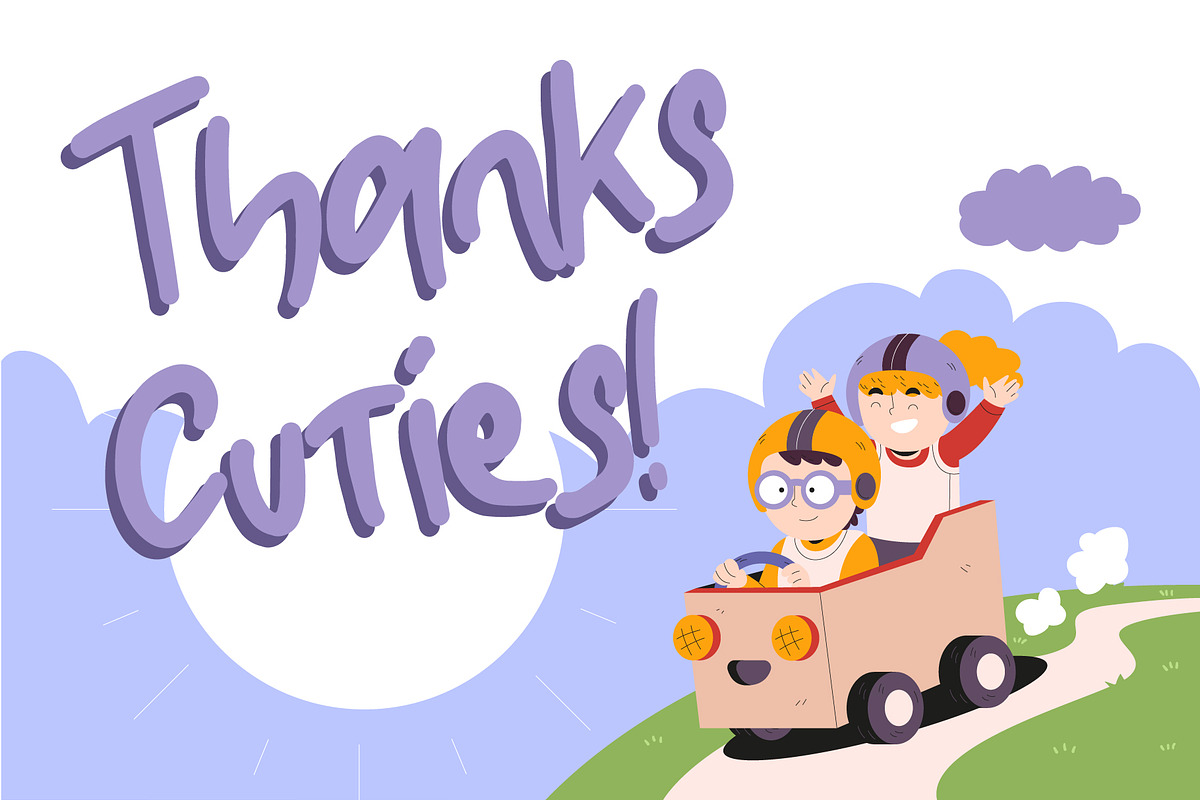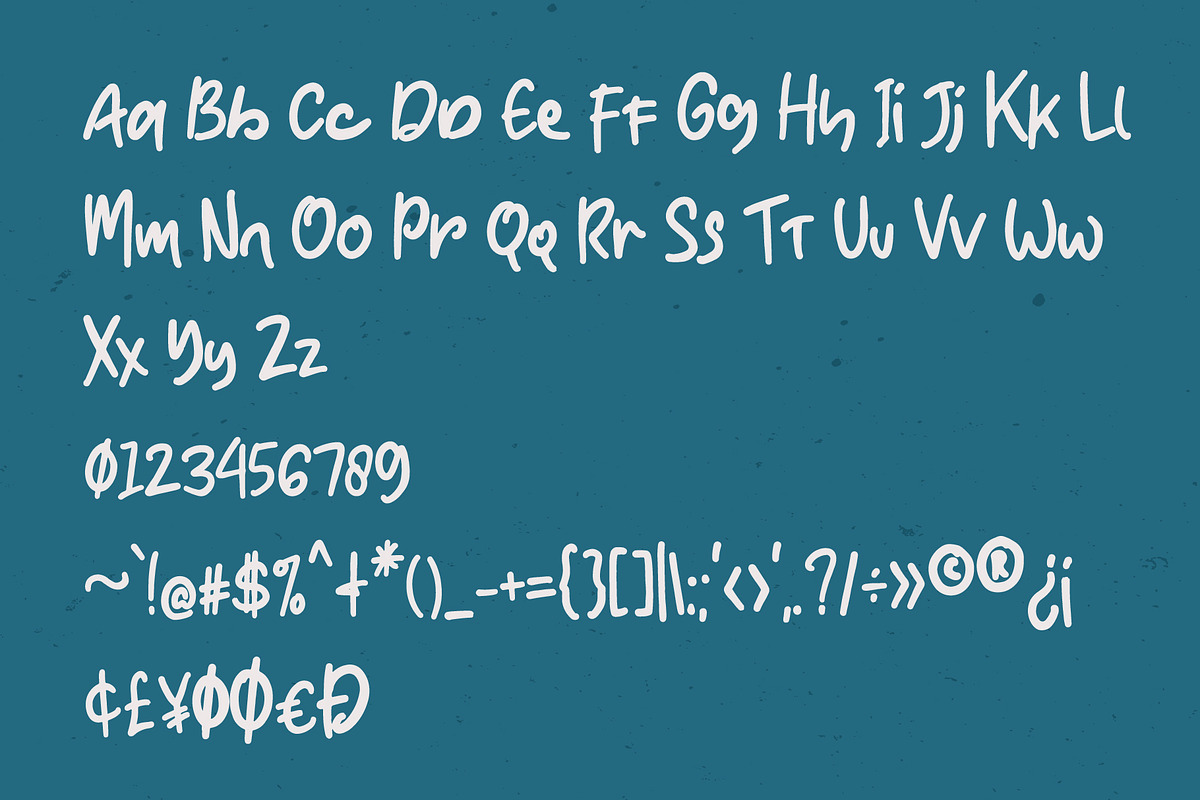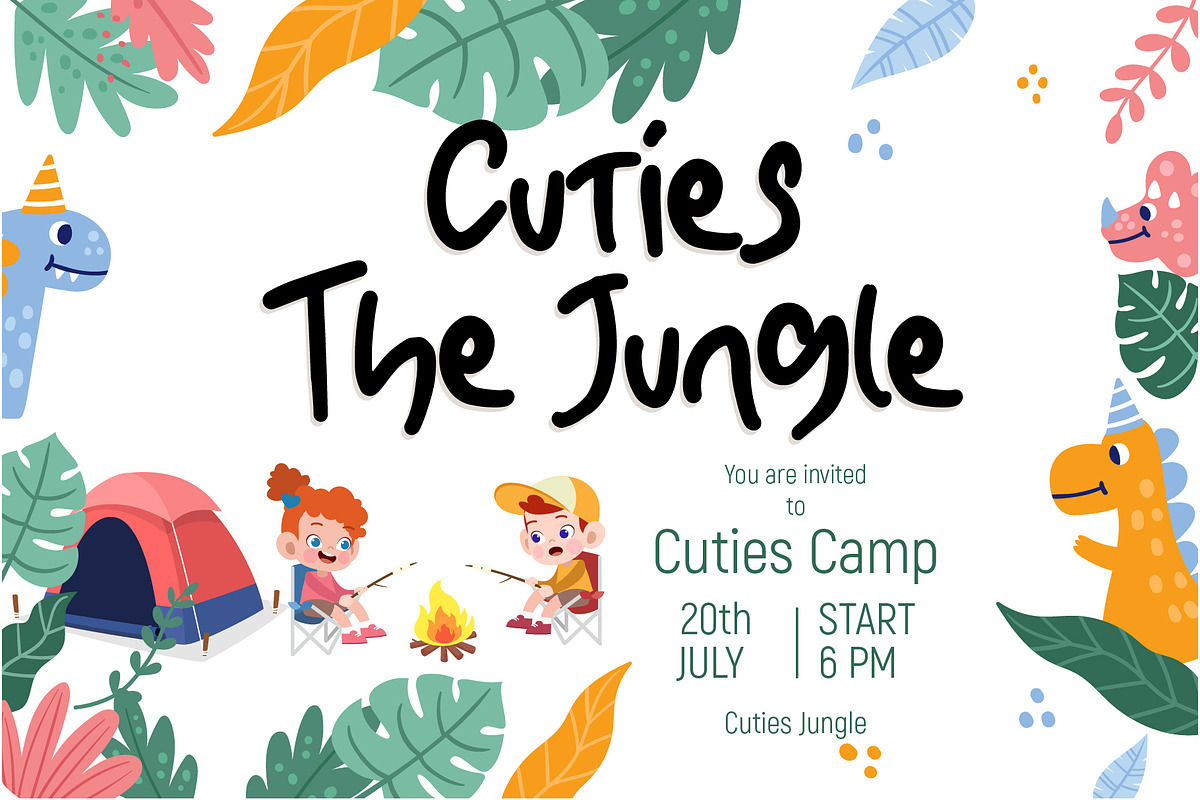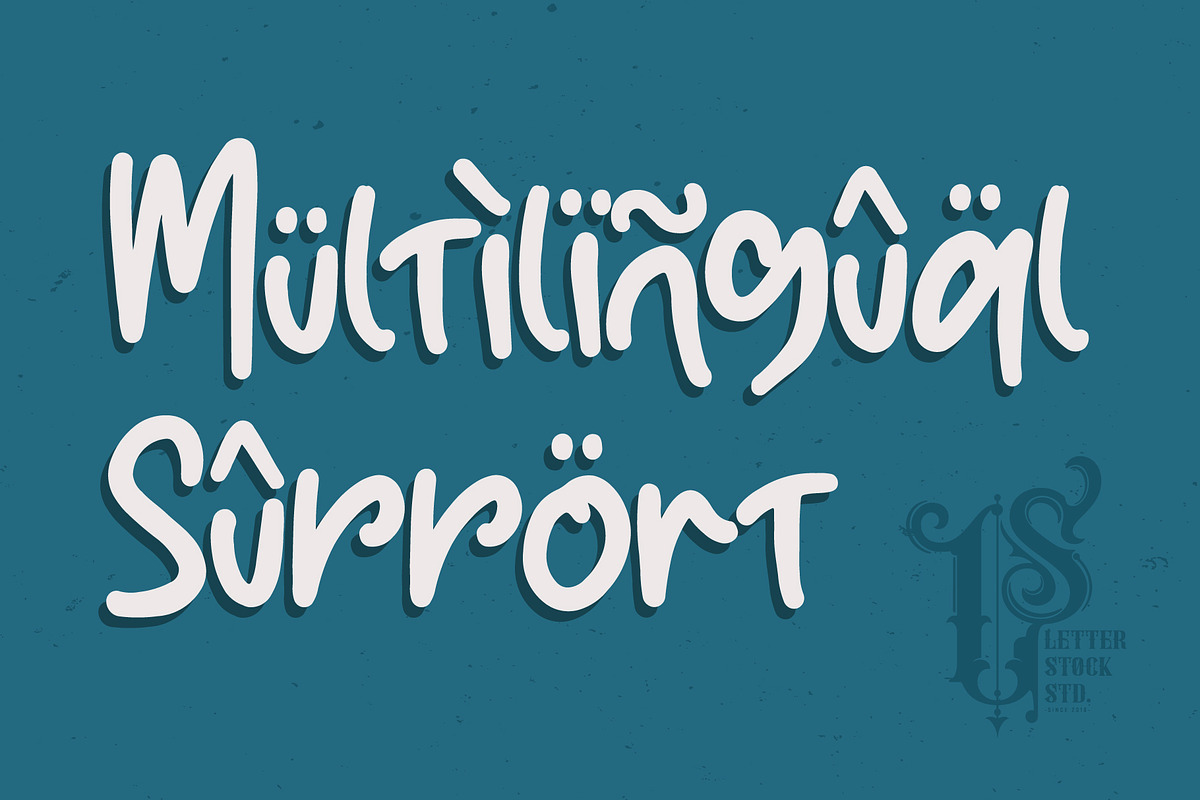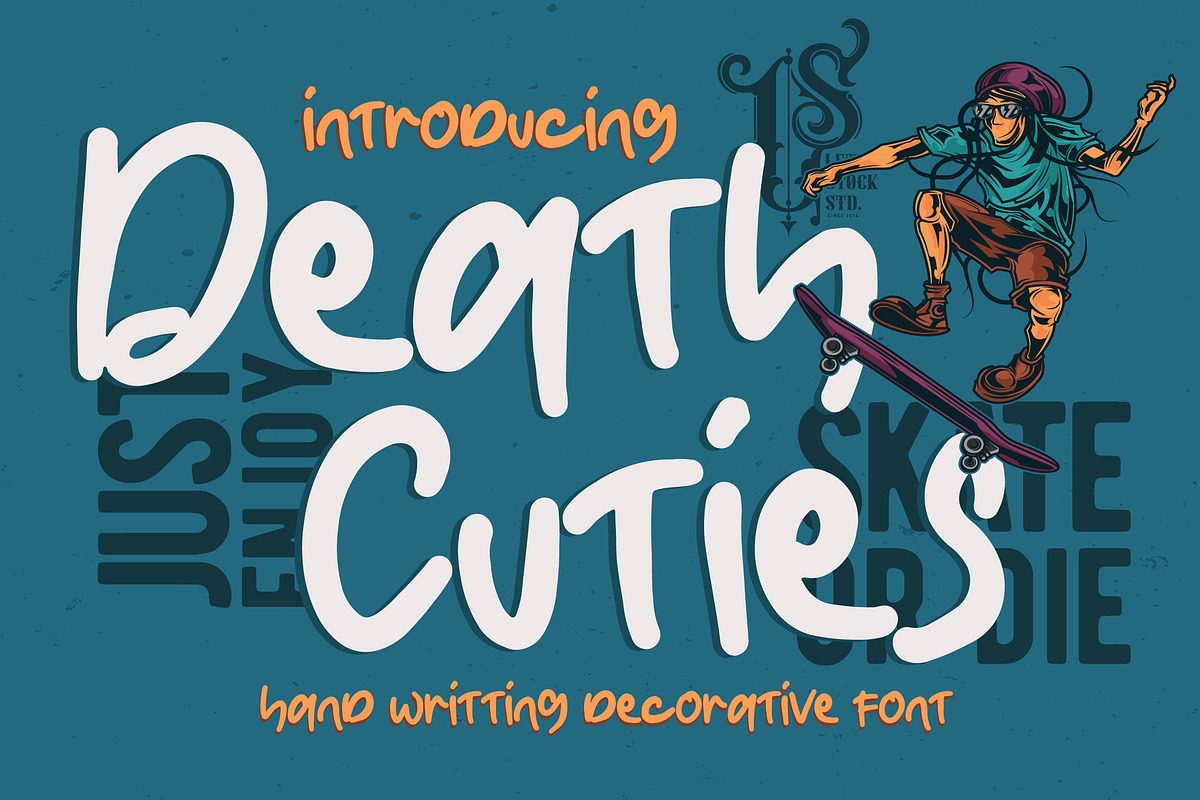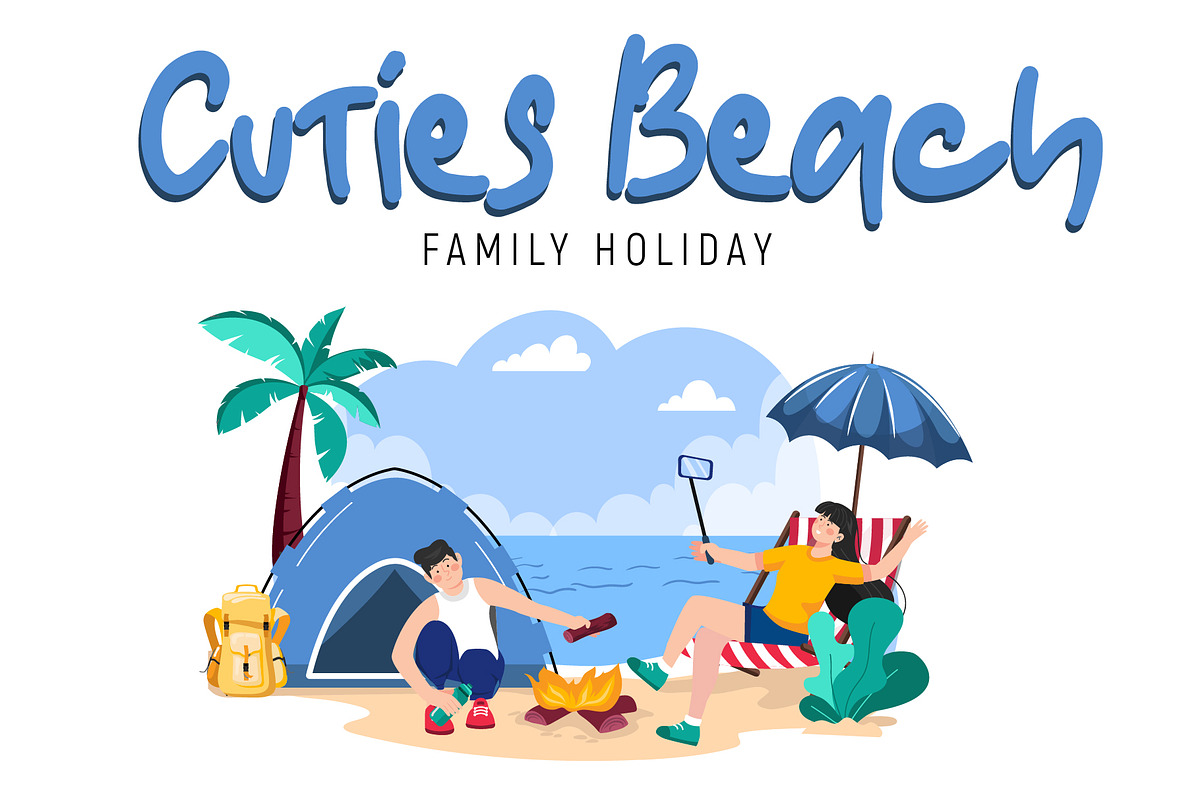
Death Cuties - Hand writting decorat
Death Cuties Font
This pair was inspired by the retro cartoon poster design that i saw on some coffee shop, It was crafted by hand specially to add natural handmade feeling in its brand identity than i make it clean with pentool.
Opentype features Death Cuties font has 178 character set included Bukle wrack Font is very good looking in logo, labels, product packaging, invitations, advertising and others.